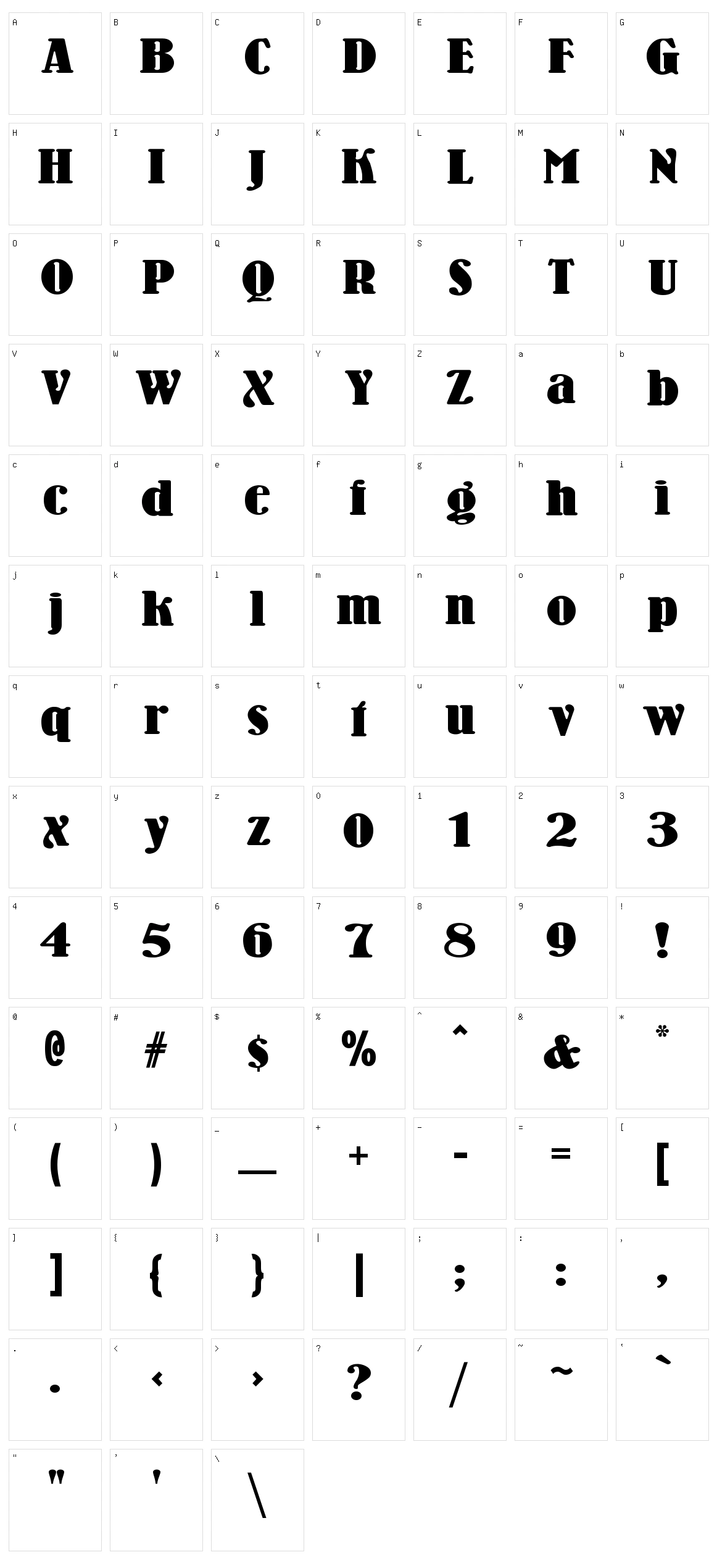
The free font Wooden Nickel Black is carefully designed by Nick's Fonts, showcasing a thoughtful balance of creativity and usability and falls under the Retro font style. When you download the ZIP file, it contains only 23.88 KB of font files, making it lightweight and quick to download. Please review the license details below to understand permitted usage and distribution rights. If license information is not available, we recommend using this font for personal projects only or contacting the author directly for commercial usage permissions.